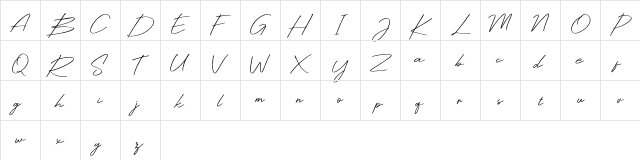
Celine Peach Free Script Regular
| Foundry | Craft Supply Co |
Design Context for Celine Peach Free Script Typeface
Celine Peach Free Script flows with the natural rhythm of handwritten lettering, making it ideal for designs that call for warmth and personal expression.
Font Pairing: Combine Celine Peach Free Script with a simple geometric sans for maximum contrast — the tension between flowing curves and clean structure is a classic typographic pairing.
Pro Tip: Pair Celine Peach Free Script with a clean sans-serif for supporting text. The contrast between fluid script and geometric structure creates an elegant typographic hierarchy.